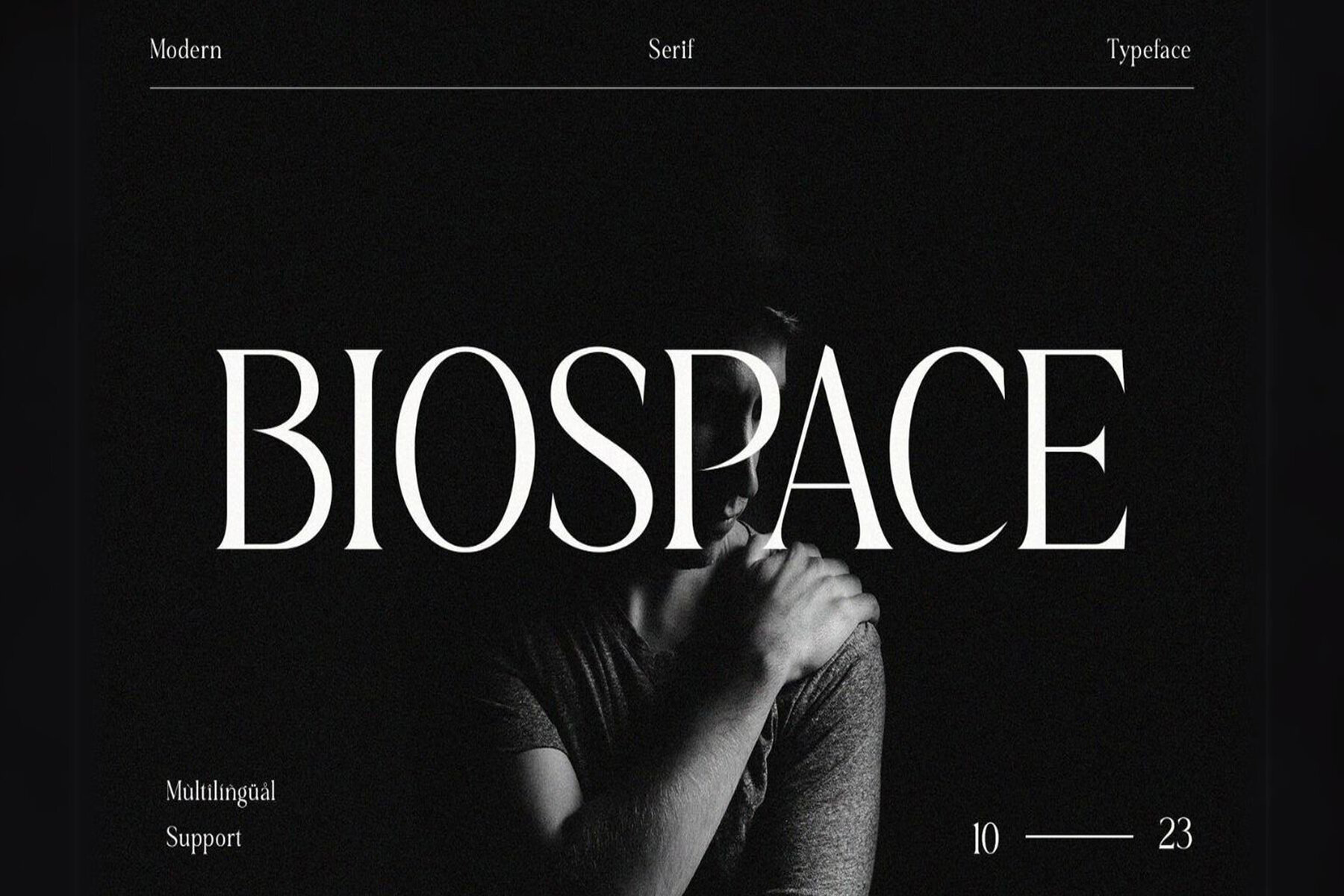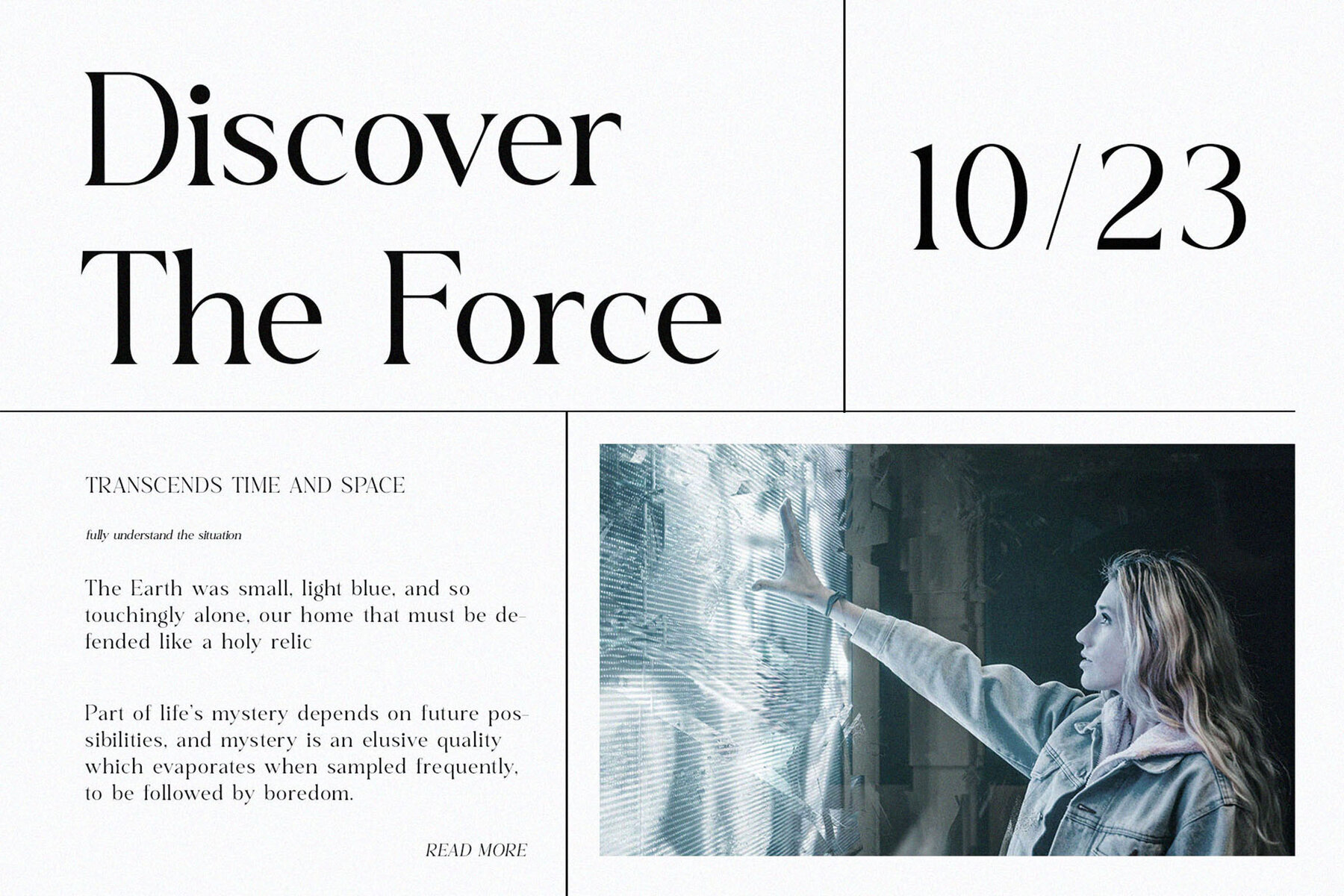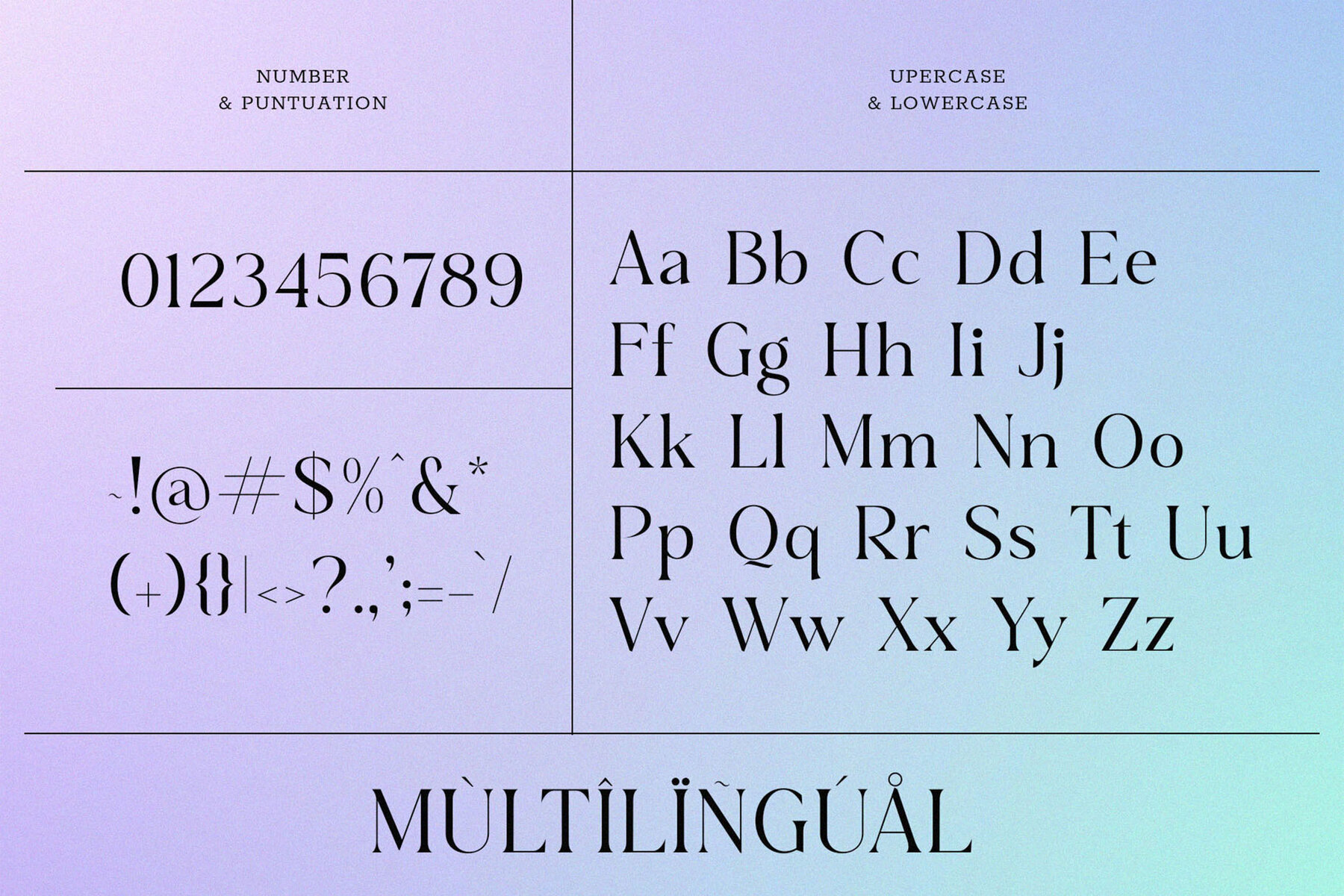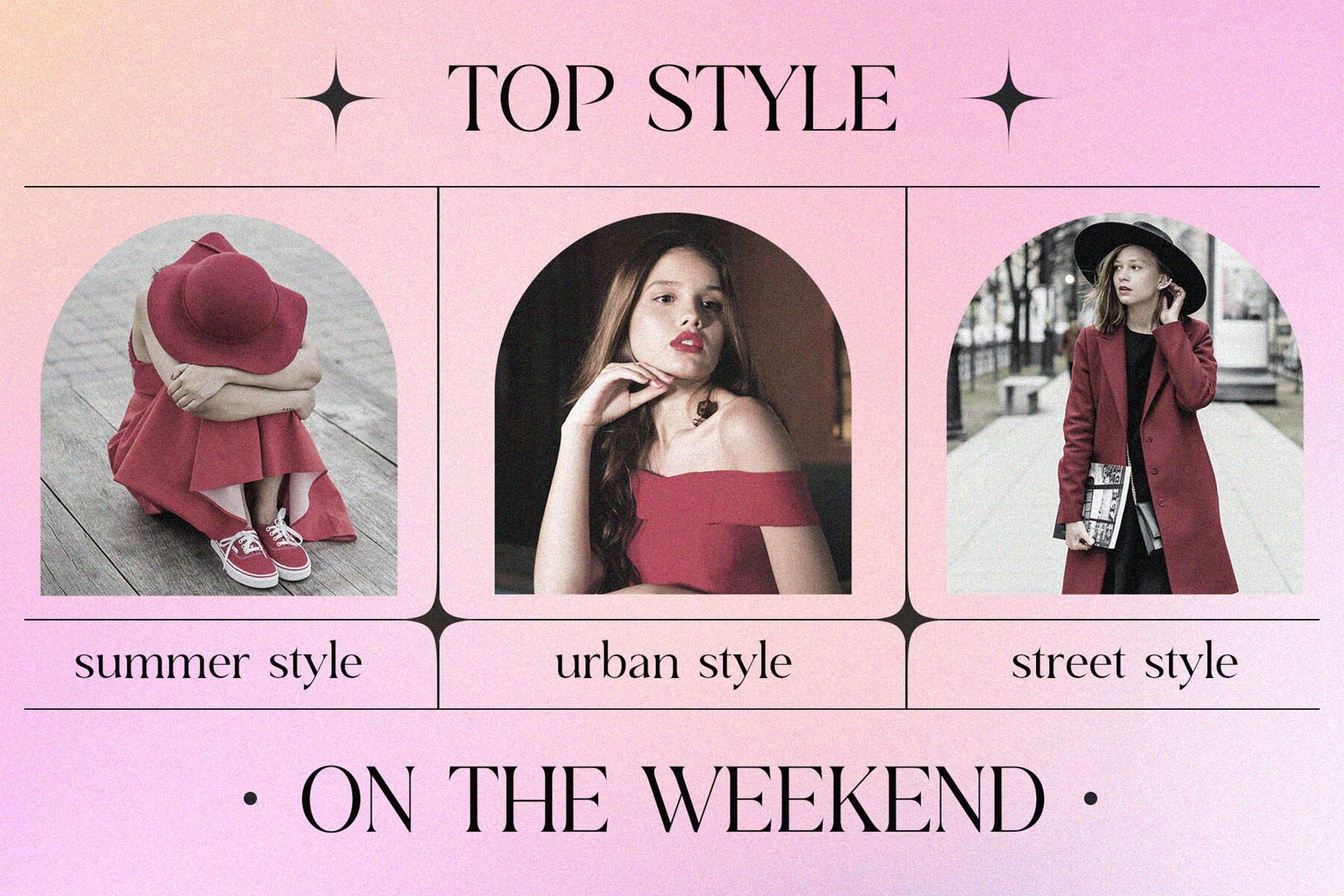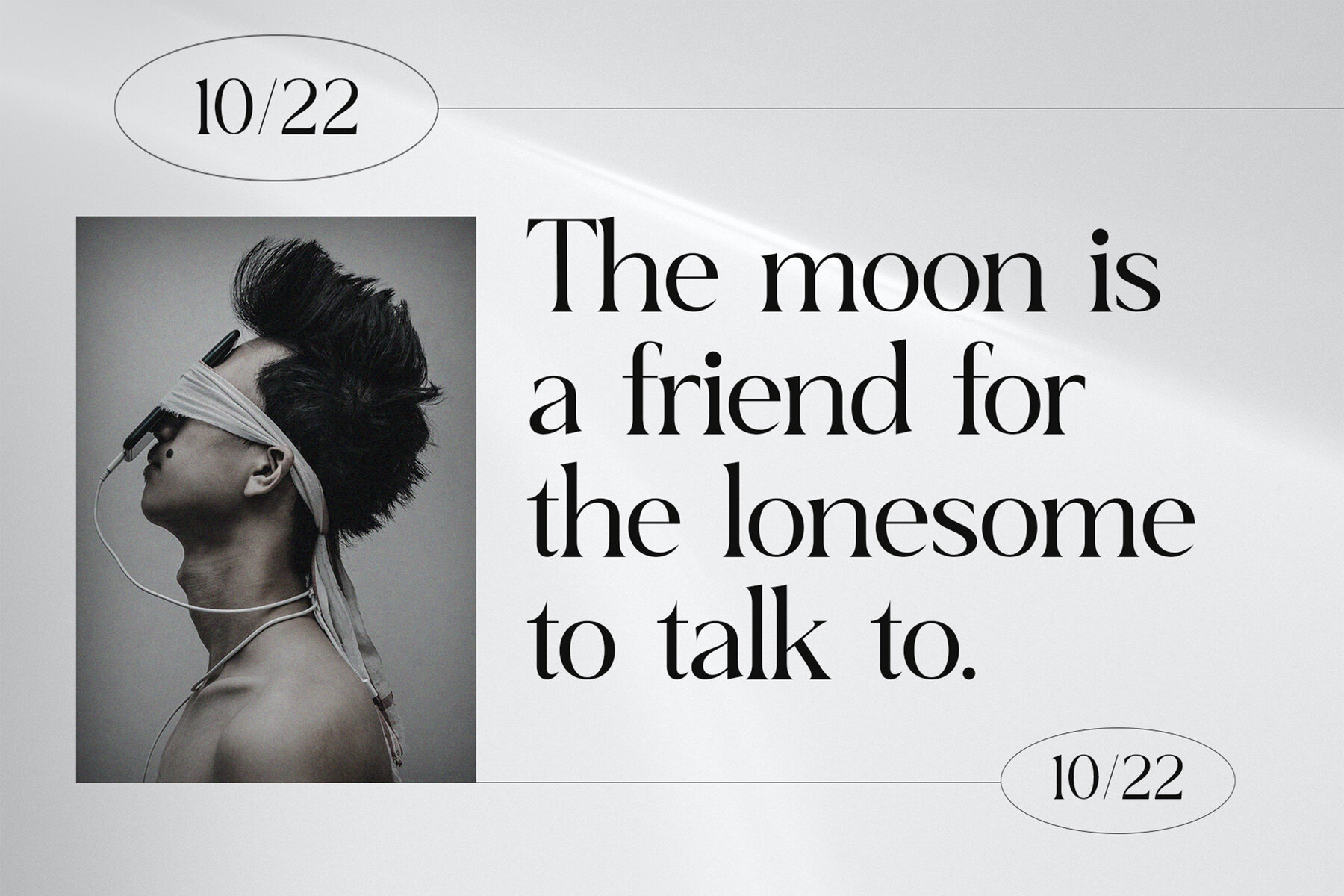
Biospace Font
Biospace Regular
Biospace is a sophisticated serif font designed to enhance elegance and modernity in your projects. With its sleek and stylish appearance, Biospace is perfect for bringing a unique and chic design sensibility to your creations. To utilize the webfont version of Biospace, a webfont license is required.Biospace: Classy and Sleek Serif Font